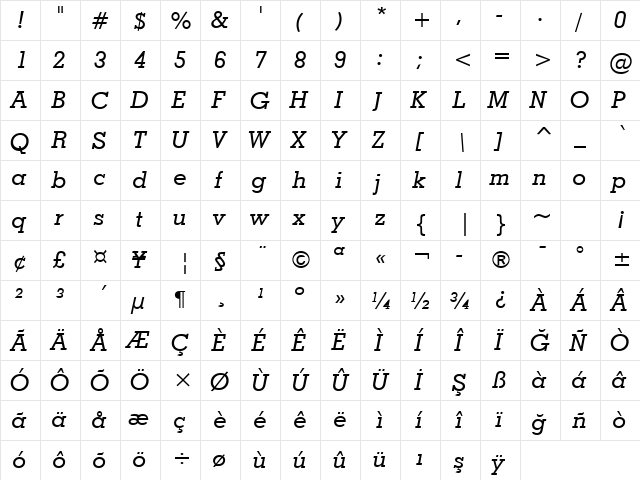
Louisville BT Medium Italic Font Preview
Louisville BT Medium Italic
Design Context for Louisville BT Typeface
Louisville BT takes a measured approach to typography — its balanced proportions and neutral character make it a reliable workhorse for both digital and print work. The slanted form adds forward momentum and visual energy.